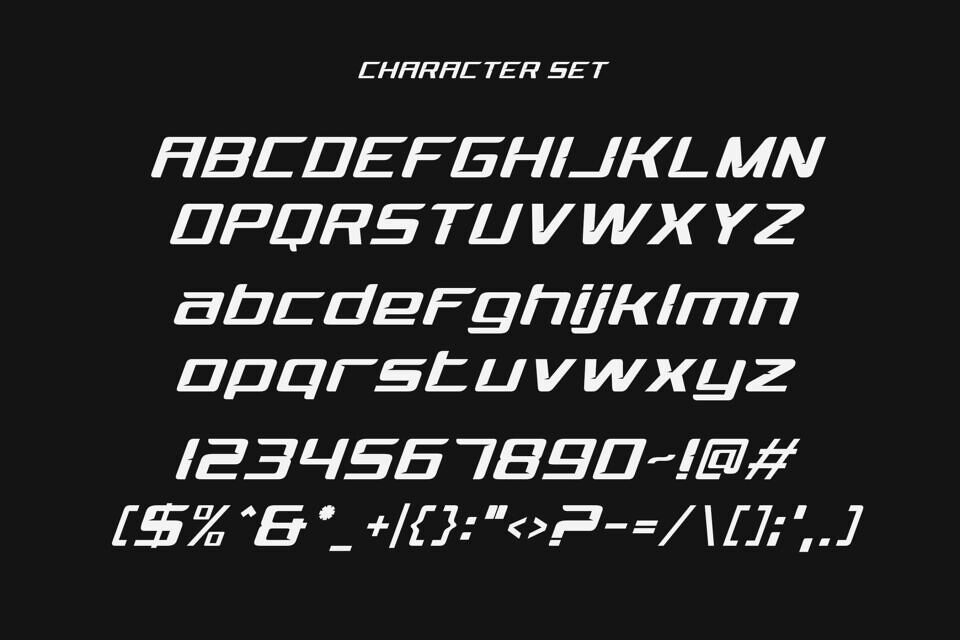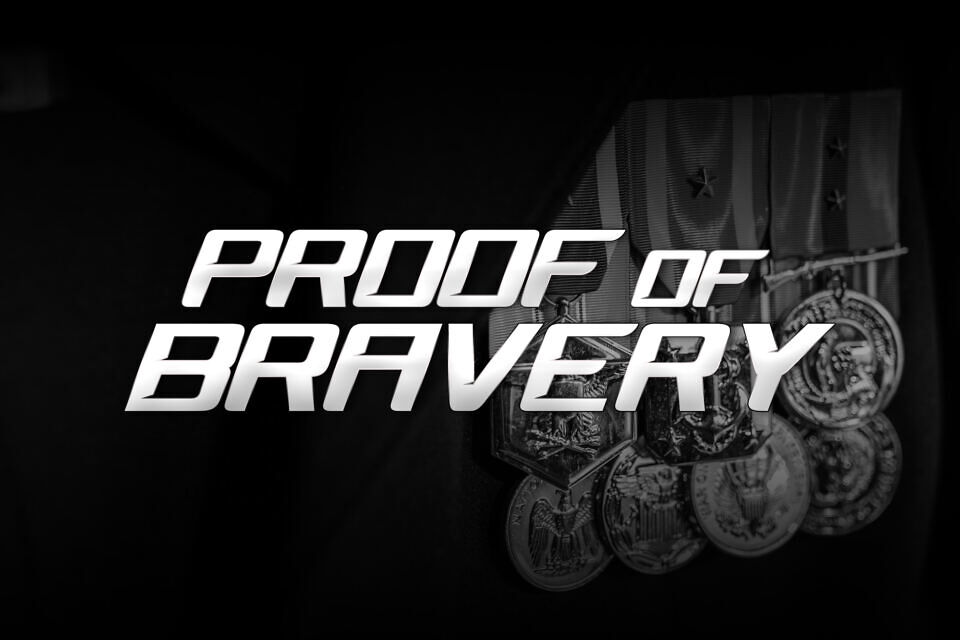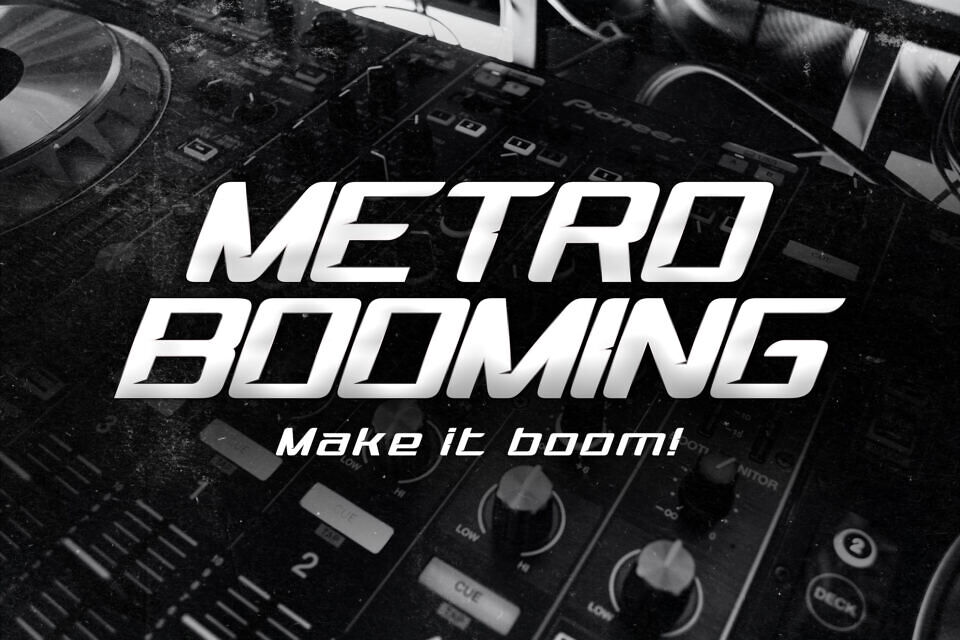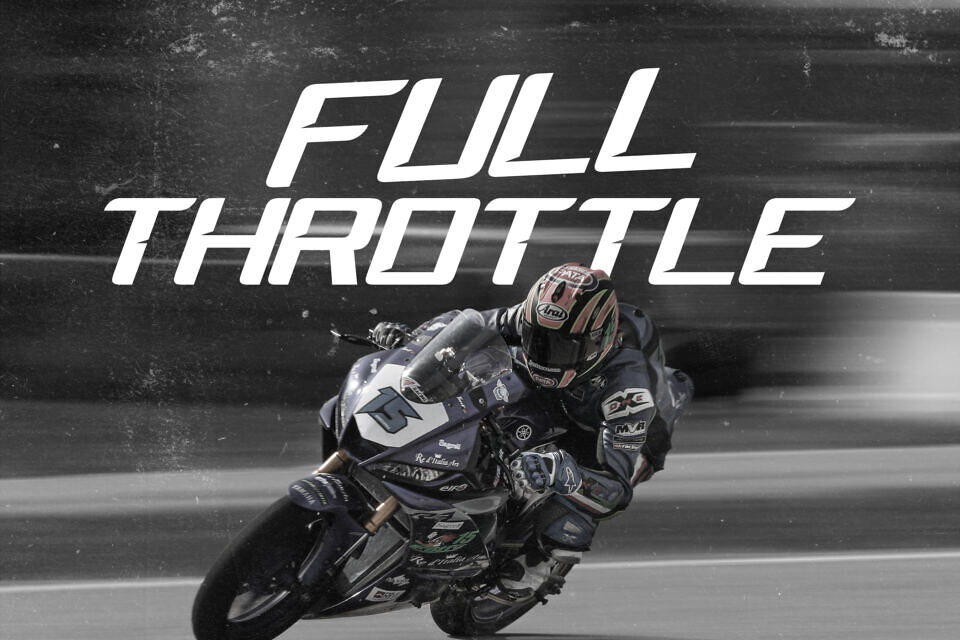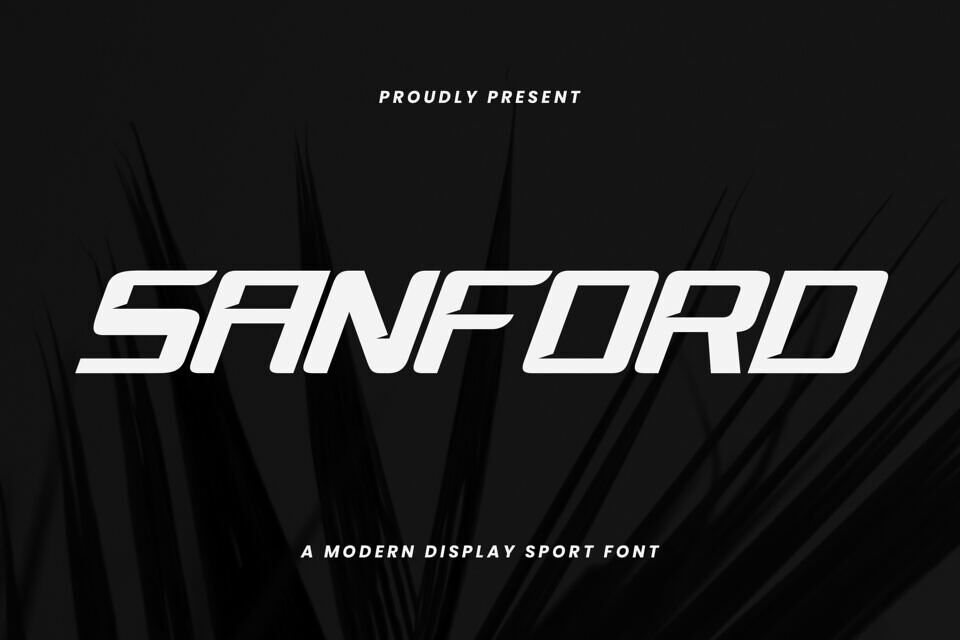
Sanford Font
Introducing “Sanford”, a Modern Display Sport Font. Sanford is the ultimate choice for designers seeking a bold and contemporary display font to make a lasting impact.
There’s some connected letters and some alternates that suitable for any graphic designs such as branding materials, t-shirt, print, business cards, logo, poster, t-shirt, photography, quotes .etc
This font support for some multilingual. Also contains uppercase A-Z and lowercase a-z, alternate character, numbers 0-9, and some punctuation.